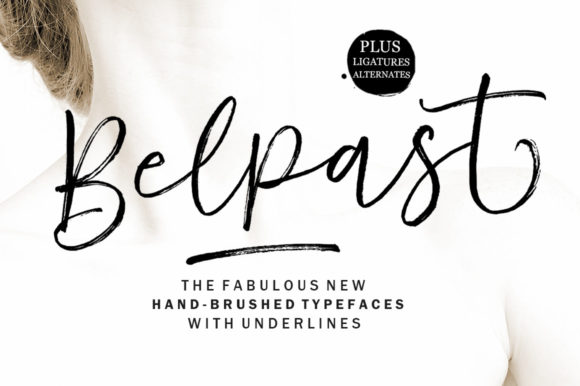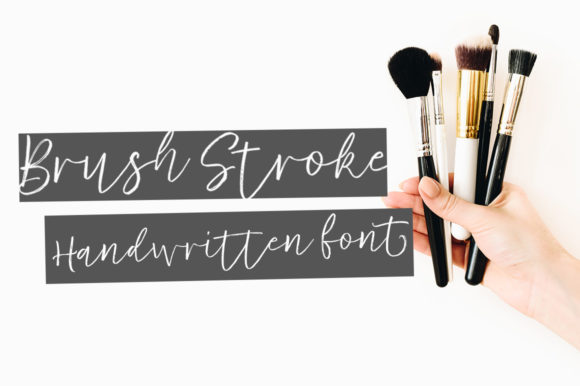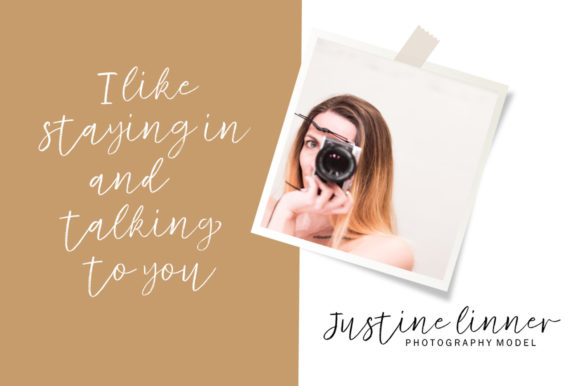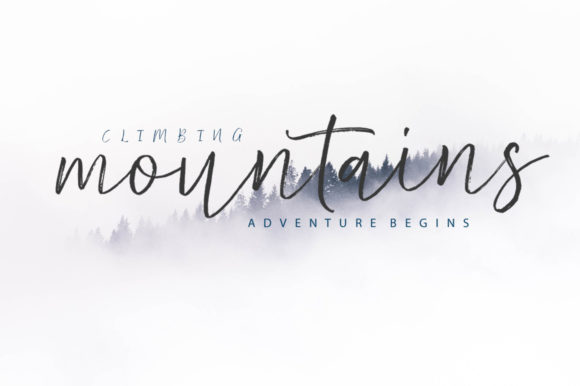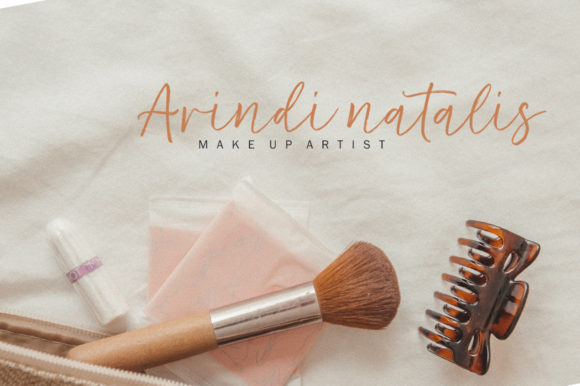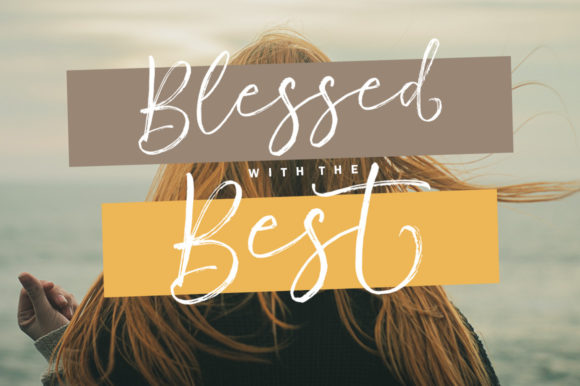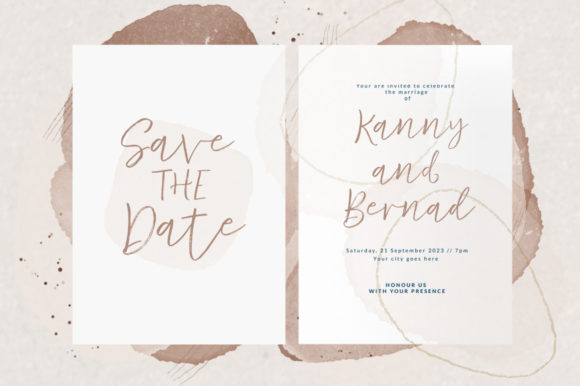
Belpast Script Font
Belpast Script is a lovely and elegant script font. This font is PUA encoded which means you can access all of the glyphs and swashes with ease!
Fall for its ravishing style and use it to create gorgeous designs.